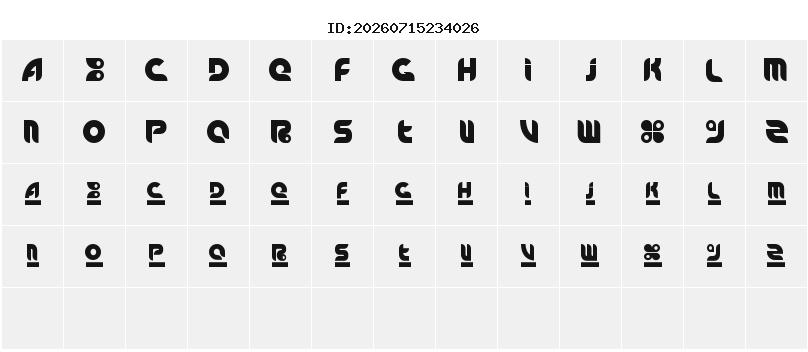
ArnStylo Preview
• Font Name: ArnStylo
• Full Font Name: ArnStylo
• Version: Version 1.00 January 16, 2011, initial release
About ArnStylo.ttf
ArnStylo.ttf is a modern, elegant sans-serif font designed for ultimate readability and visual harmony. Perfect for branding, headlines, web design, and print materials.